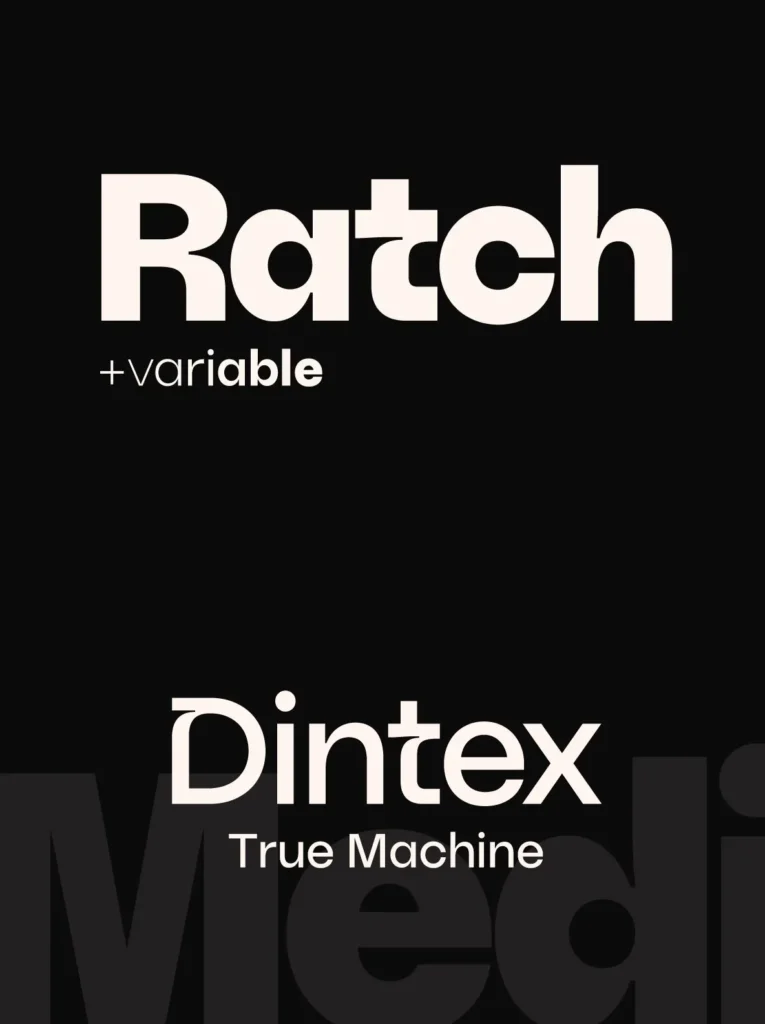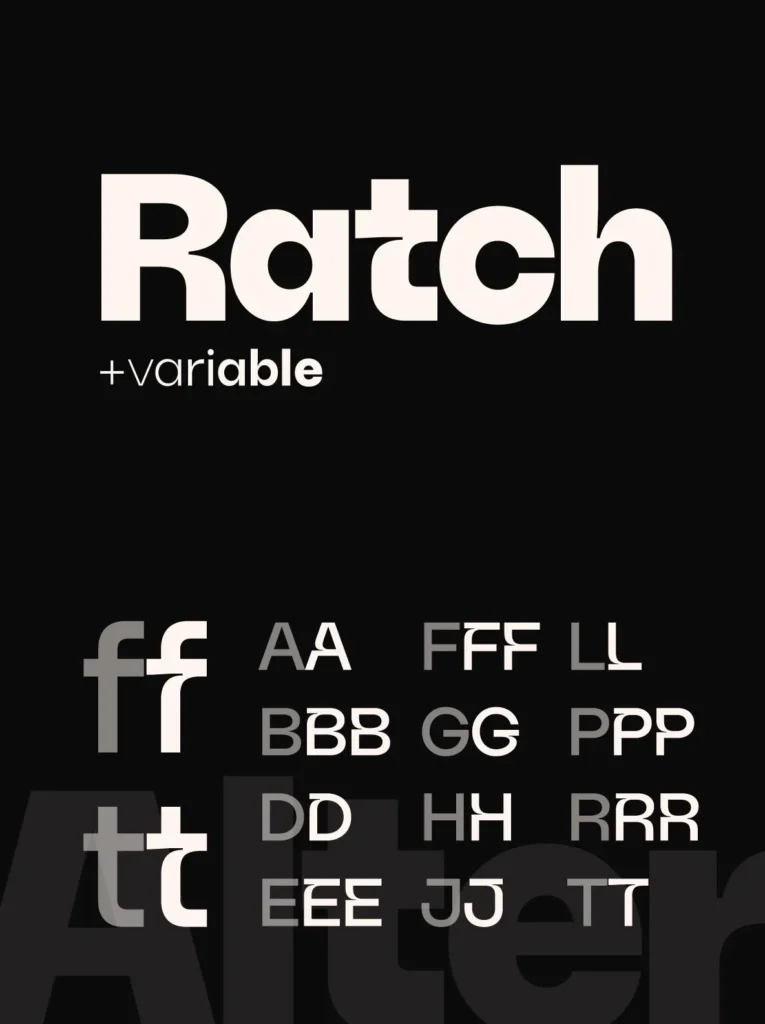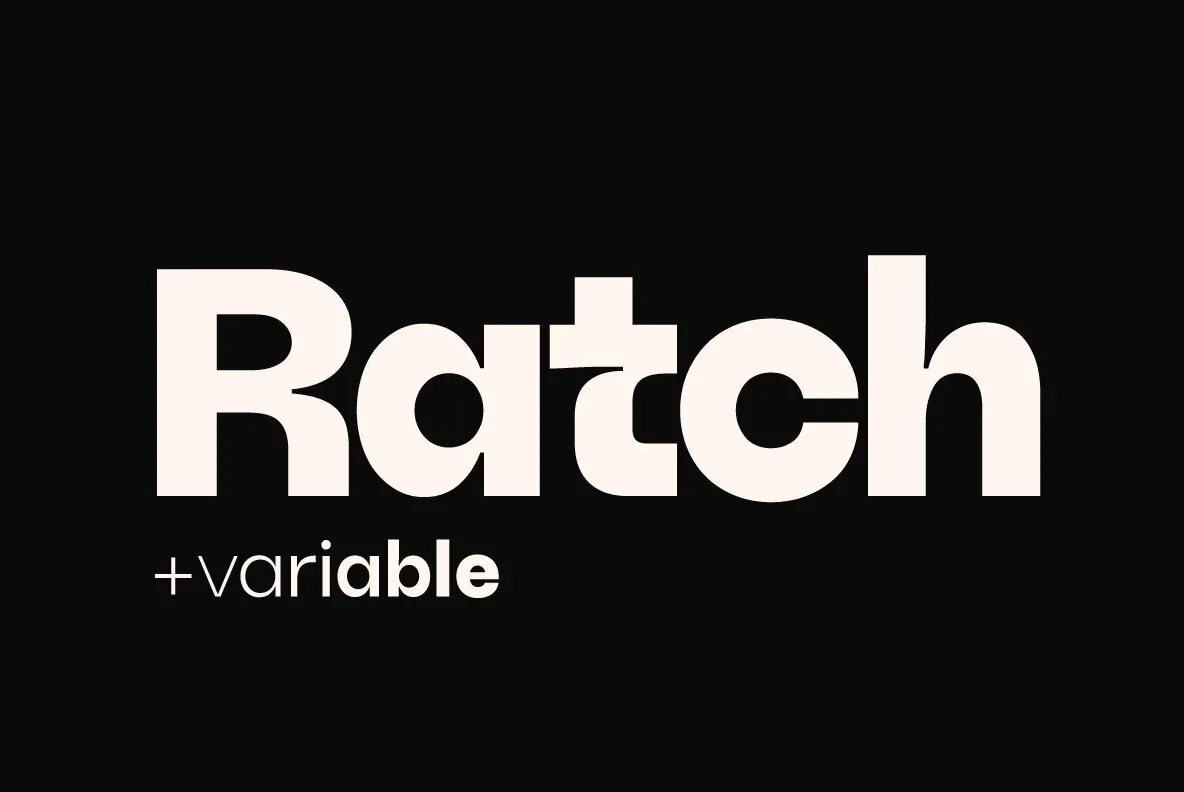
Ratch: Modern Geometric Grotesk Typeface Family
Ratch exemplifies modern design with its geometric grotesk typeface family, offering seven distinct weights ranging from Thin to Black. This versatile collection includes a fully functional variable font, making it an ideal choice for diverse design projects. Each style within this family boasts stylistic alternates that allow for personalized text enhancements.
Comprehensive Font Features
Latin Letters
– Both lowercase and uppercase varieties.
Alternate Characters
– For custom character styling.
Multilingual Support
– Basic letters for various languages.
Numerals
– Essential numerical characters.
Extra Characters & Punctuation
– To meet all your typographic needs.